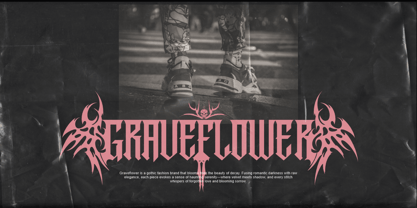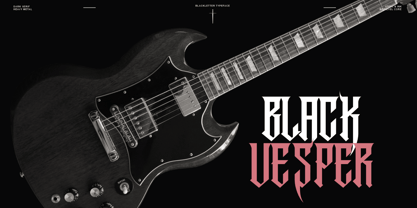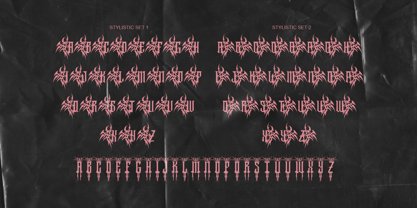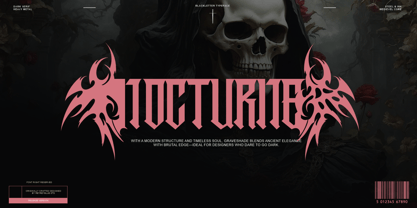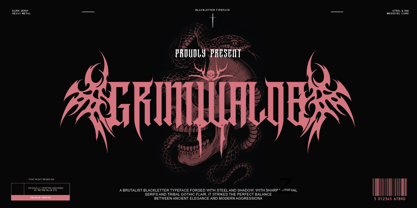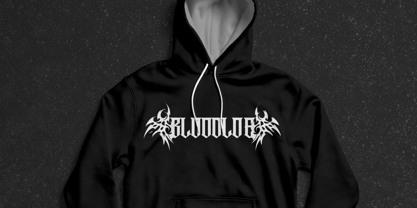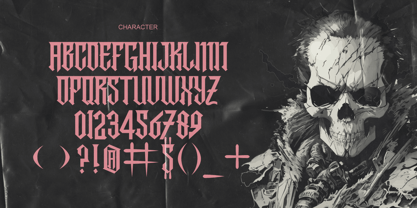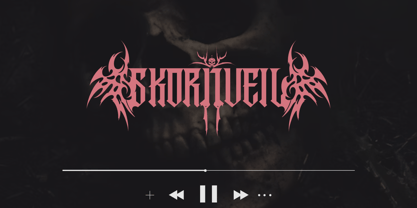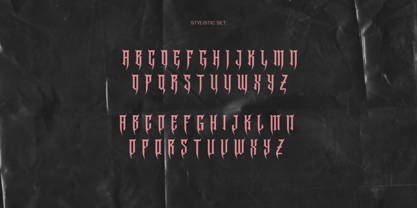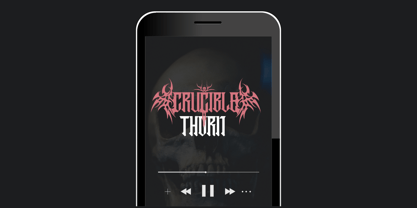
Grimwalde
The Grimwalde Font Family was designed by Nur Hasan and published by Reyrey Blue Std. Grimwalde contains 1 styles. More about this family
Grimvalde is a dark serif blackletter typeface designed with 364 glyphs and a wide range of alternate characters, offering maximum versatility for bold and gothic-inspired designs. Crafted for designers who dare to go dark, Grimvalde blends ancient medieval elegance with modern brutalist edge—perfect for metal band logos, horror titles, gothic fashion, tattoo art, and occult branding.
With sharp serifs, tribal flourishes, and stylized alternates, Grimvalde lets you create custom typographic compositions with personality and depth. Every letterform has been carefully drawn to retain clarity, impact, and dramatic flair—whether on screen or in print.
Font Features:
• 364 glyphs including alternates, punctuation & multilingual support
• Uppercase-focused design with stylistic alternates
• Ideal for metal album covers, horror posters, branding, and apparel